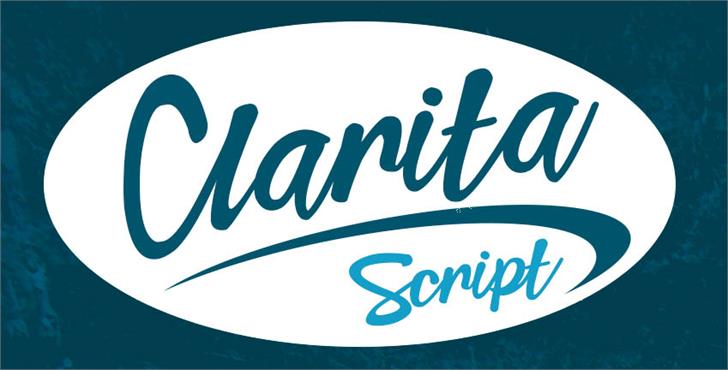
Free Clarita Script Font
Featuring a free clarita script font. Download this typeface from the original source of Font Space. This is absolutely fancy font so you can easily make world-class designs.